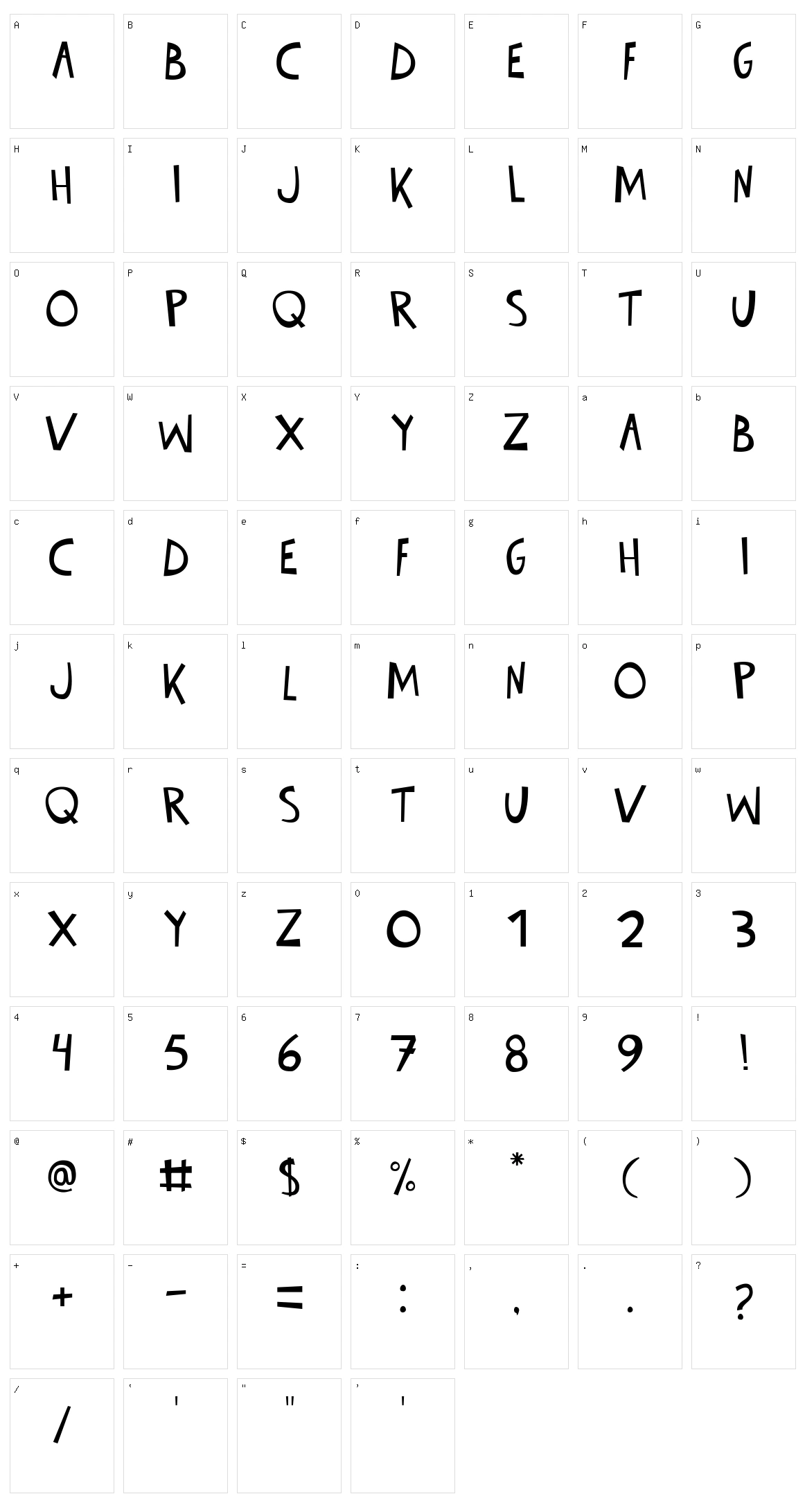
The free font Totally Oilsome is carefully designed by Erik Jeddere-Fisher, showcasing a thoughtful balance of creativity and usability and falls under the Cartoon font style. When you download the ZIP file, it contains only 9.28 KB of font files, making it lightweight and quick to download. Please review the license details below to understand permitted usage and distribution rights. If license information is not available, we recommend using this font for personal projects only or contacting the author directly for commercial usage permissions.